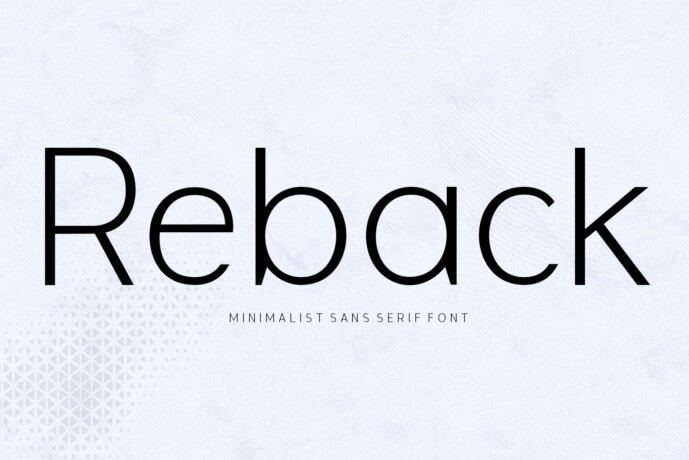
Reback Font
Designer: moriztype
Introduce Reback – A Modern Font with Strong and Elegant Character Meet Reback, a modern sans serif font that combines visual power with a touch of elegant minimalism. Made for those who want to stand out, Reback is designed to give a professional, bold, and characterful impression – without losing its flexibility.